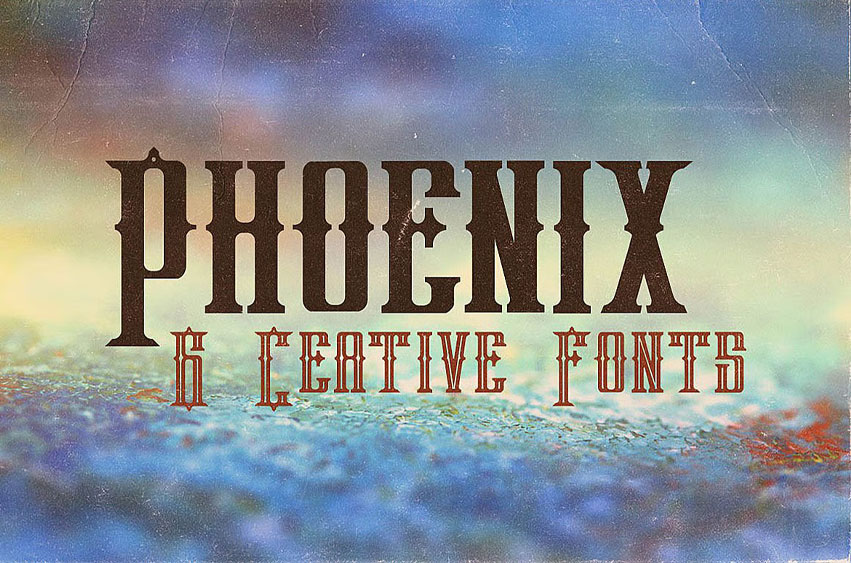
Phoenix Typeface Font
Phoenix Typeface Font Unique vintage or fantasy style custom font with 6 styles: regular and grunge, inline & inline grunge, bold & bold grunge.